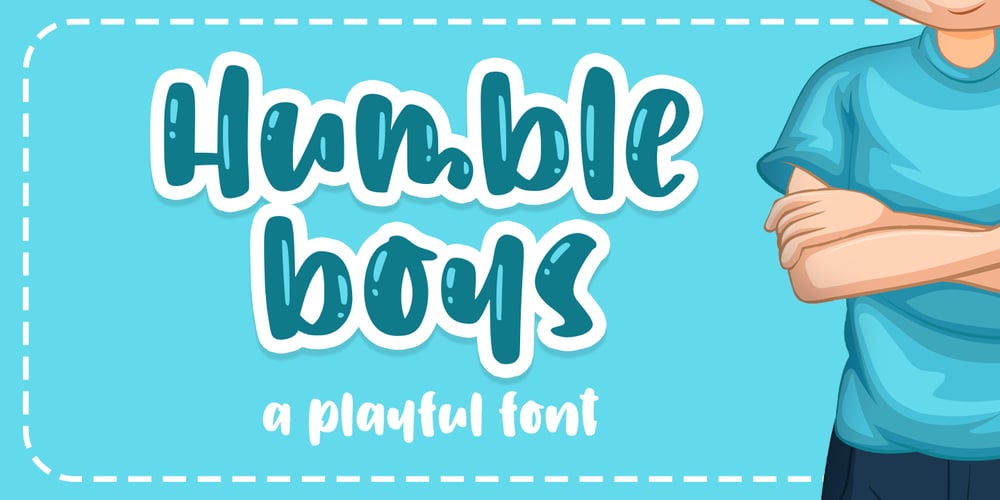
Humble Boys Font Family was designed by Abo Daniel and published by Abo Daniel. Humble Boys contains 2 styles and family package options. IntroducingHUMBLE BOYS- a playful font -It’s great for branding, packaging, logo, quotes, and another project that needs a cheerful feel.It came with 3 styles Regular, Solid, and AccentHumble Boys Solid and Humble Boys Accent is a perfect combination.It is multilingual supportThis font is very easy to use…even for a beginner.Regards,Abo Daniel Studio